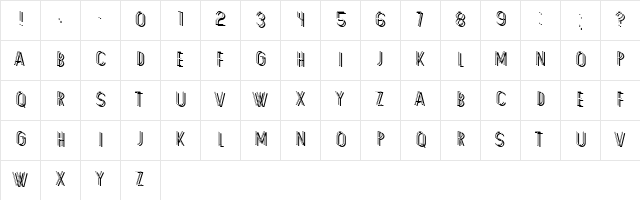
Familie Regular
Design Context for Familie Typeface
Familie is a composed and adaptable typeface that performs quietly and consistently across a wide range of design contexts.